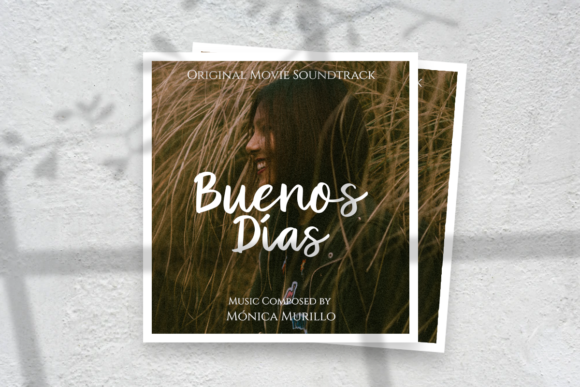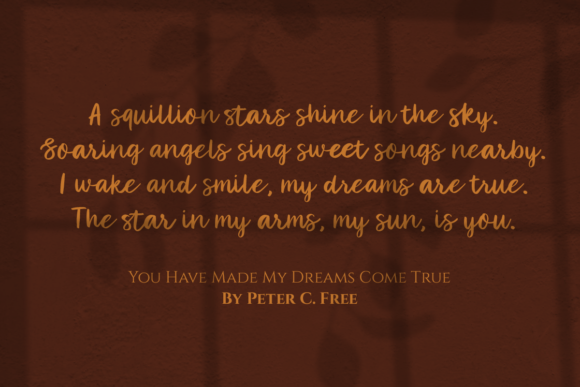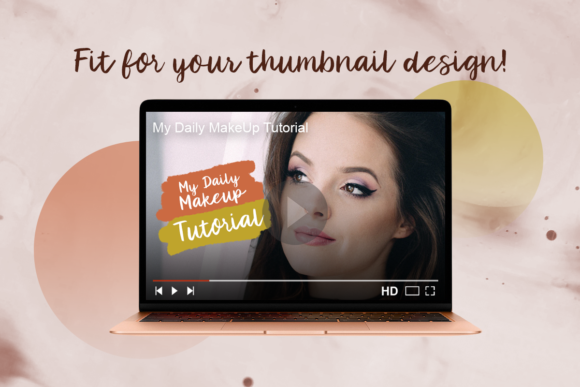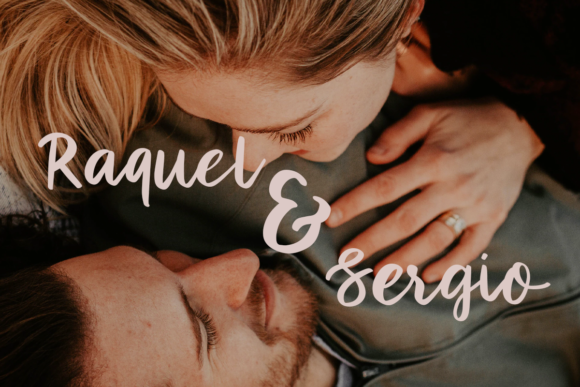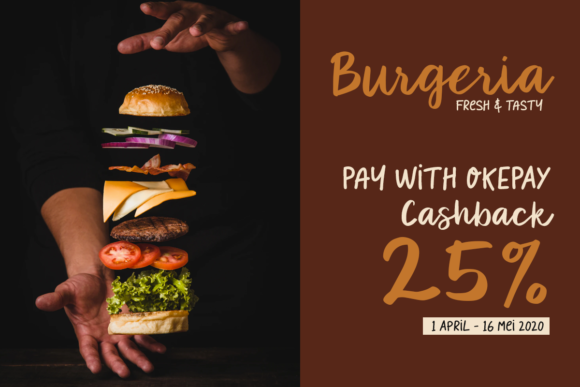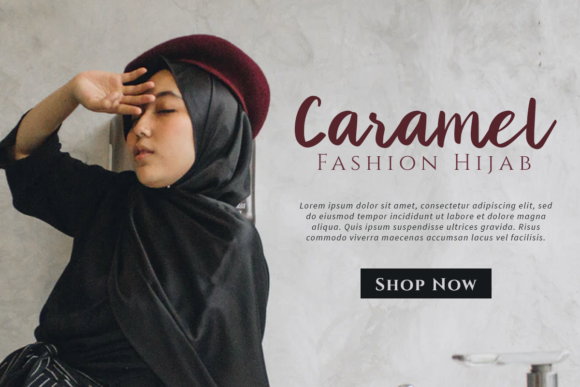
Introduction to Ranessa Font
Have you ever been in the middle of a creative project, only to be stopped in your tracks by the perfect font? For designers, finding that elusive “wow” font can be a game-changer. It’s the difference between a good design and a great one. And that’s exactly what we’re excited to share with you today – the stunning Ranessa Font.
With its elegant and refined script design, Ranessa Font is a high-quality resource that’s sure to elevate any creative project. Whether you’re working on a logo, branding, invitation, or social media post, this versatile font is a must-have in your design arsenal. And the best part? It’s available for a free download, complete with a transparent background, making it easy to use and customize to fit your needs.
Key Features of Ranessa Font
- High-quality, professional design suitable for various creative projects
- Perfect for designers looking for a high-quality, free design resource for their creative projects
Honest Review: Ranessa Font
I recently came across the Ranessa Font while searching for a high-quality design resource for a creative project. I was impressed by its elegant and sophisticated look, which I think would be perfect for a wedding invitation or a luxury brand’s logo.
Here are some things that I think work well with the Ranessa Font:
- ✨ Its elegant and sophisticated design makes it perfect for high-end brands or creative projects.
- ✨ It comes with a transparent background, which is convenient for designers who need to overlay it with other elements.
- ⚠️ It’s only available in a limited number of font weights, which might not be ideal for designers who need more flexibility.
- ⚠️ It’s not suitable for body text, as it can be a bit too ornate and difficult to read in large quantities.
Overall, I think the Ranessa Font is a great addition to any designer’s toolkit, but it’s essential to use it judiciously and in the right context. With its elegant design and convenient features, it’s a great choice for creative projects that require a touch of sophistication.
Ranessa Font
Common Use Cases for Ranessa Font
Ranessa Font is perfect for:
– Creative projects, such as graphic design, digital art, and typography.
Is the Ranessa Font suitable for digital or print projects?
The Ranessa Font is a versatile design resource that can be used for both digital and print projects. Its high-quality design and transparent background make it an excellent choice for web design, graphic design, and other creative projects that require a unique and eye-catching font.